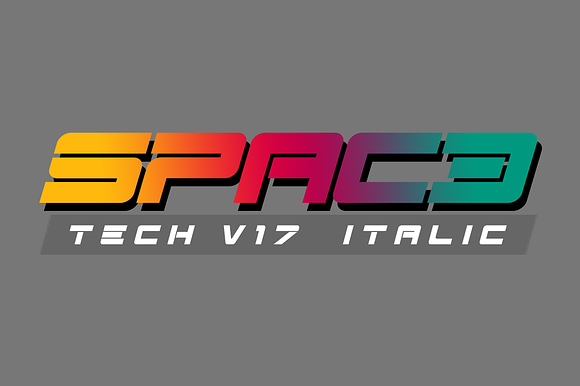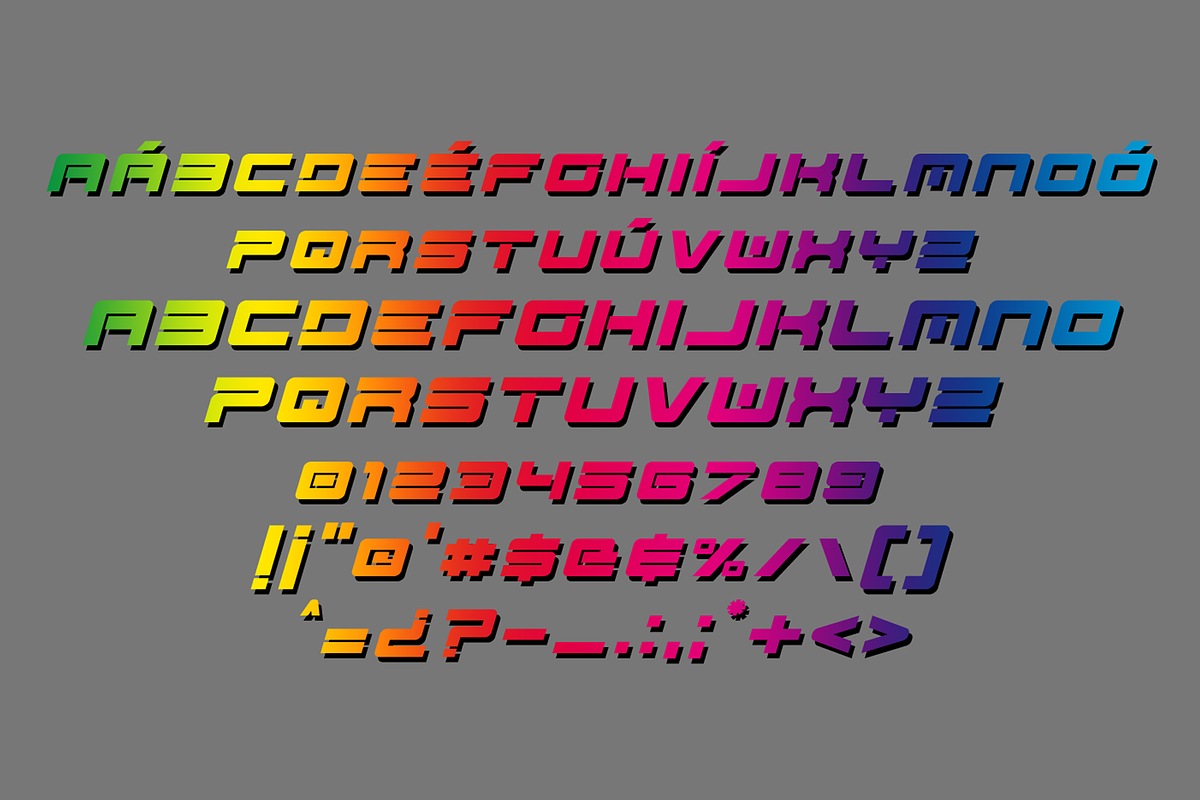
Spac3 - Tech v17 - Italic
- " S P A C 3 - T E C H v 1 7 - I T A L I C " F o n t This Font contains 95 characters, including, lowercase, numbers and symbols.
Why Spac3 - Tech v17 - Italic is worth a look
Spac3 - Tech v17 - Italic by Qbotype Fonts fits naturally into Branding, posters, packaging, typography.